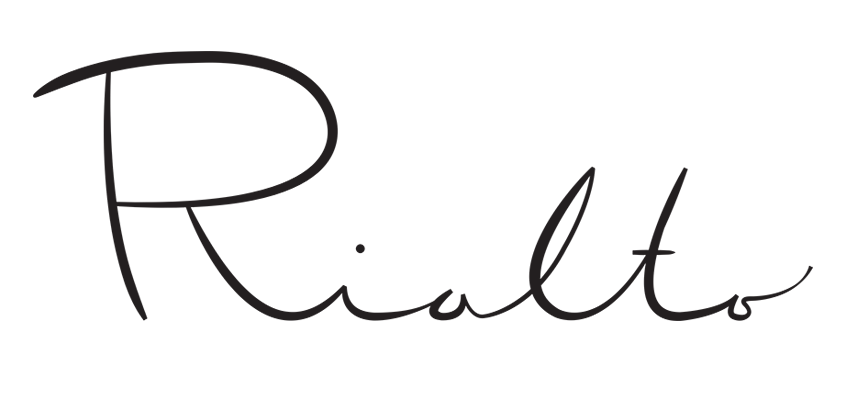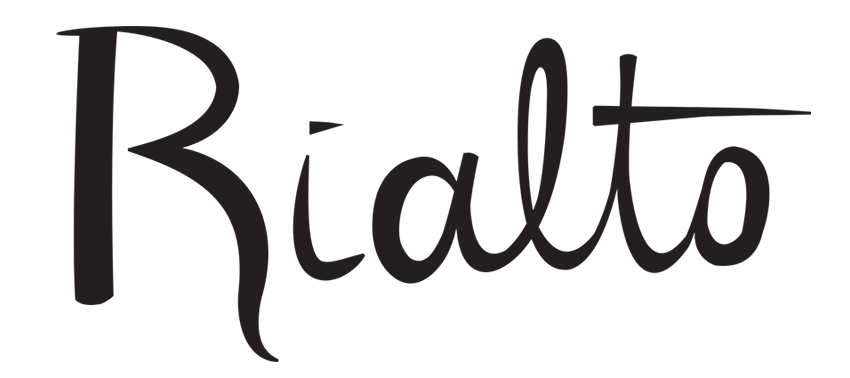
In The Loop TypeEd Leah Faust
In The Loop is an exploration of script-making and crafting and teaches aspects of readability, angle, stroke variation and more. Leah taught participants what is most effective in creating longevity and elegance. Her workshop focuses on mimicking natural lines and translating letterforms to digital forms with bézier curves.